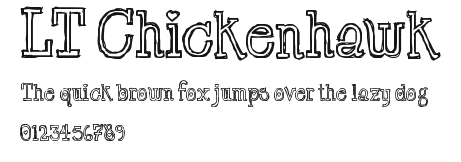
LT Chickenhawk Preview
• Font Name: LT Chickenhawk
• Designer: Lauren Thompson
• Description: Original hand drawn slab serif outline decorative typeface by Lauren Thompson. Formerly an all lowercase font, proper capitals and many other additional characters added to LT Chickenhawk on February 6, 2013. Why "LT Chickenhawk?" The letters "LT," of course represent my initials, to signify and identify the font as one I have authored. In my earlier days (:P) I intended to continue the practice of adding the initials to font names, but soon discontinued the practice to avoid possible confusion, as those particular letters (LT) have other well known connotations in typographic regard. As for "chickenhawk," well I always thought of it as a cute and silly word, in hindsight, I don't think I would have chosen it had I known it's colloquial use. I just thought it was cute sounding, and could serve as a play on words of sorts as the design of the font could be described as "chickenscratch," albiet *cute* chickenscratch.